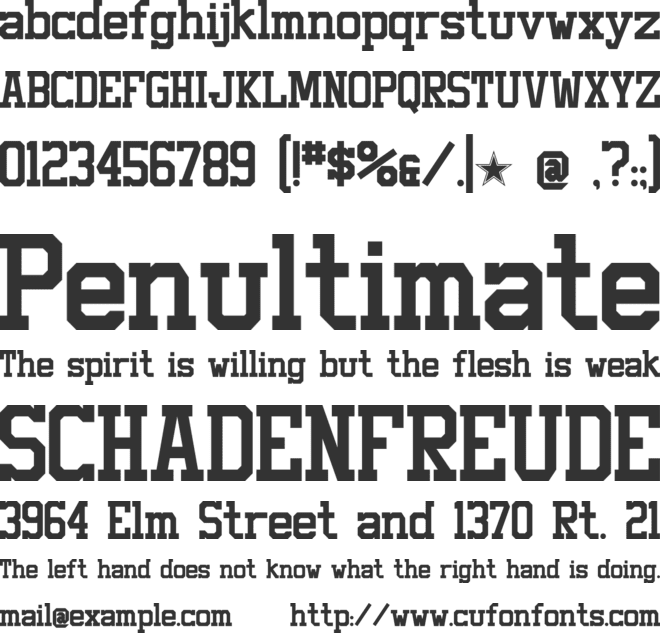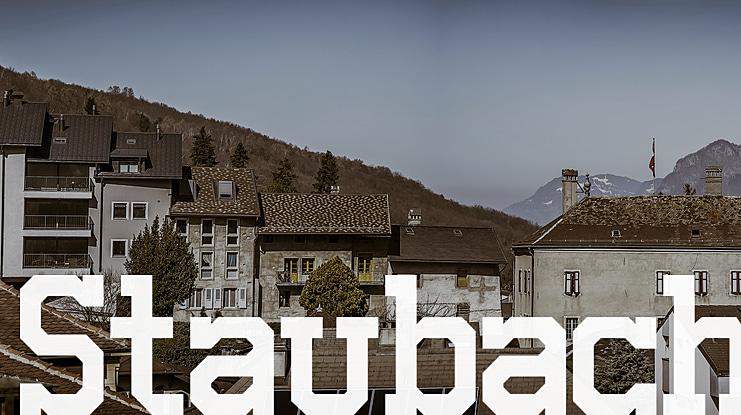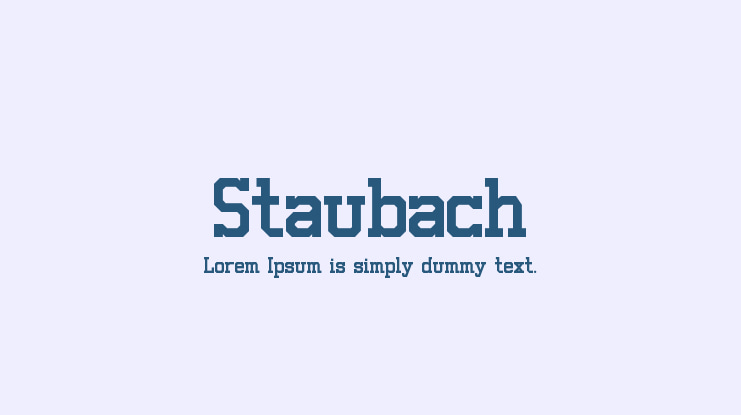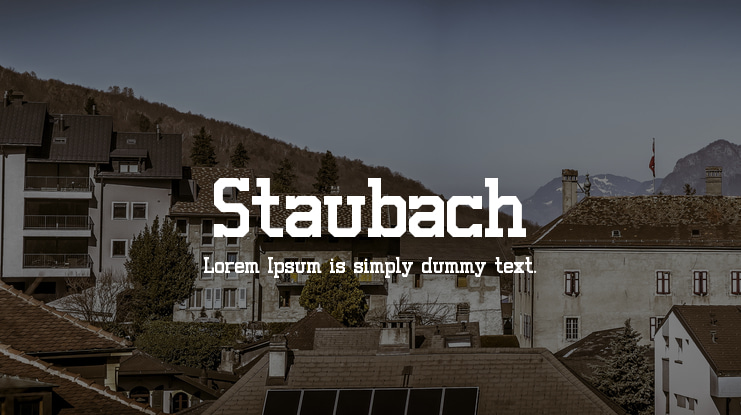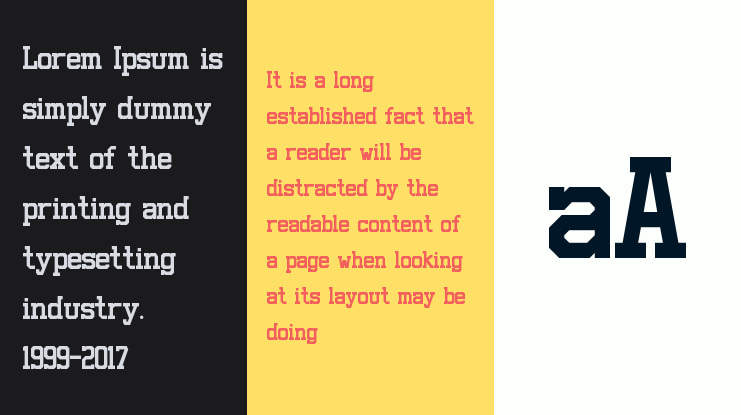
Staubach Font
My latest sports block font is based on the jersey numerals used by the
Dallas Cowboys in the '70s and early '80s. The lowercase characters are of
my own imagination